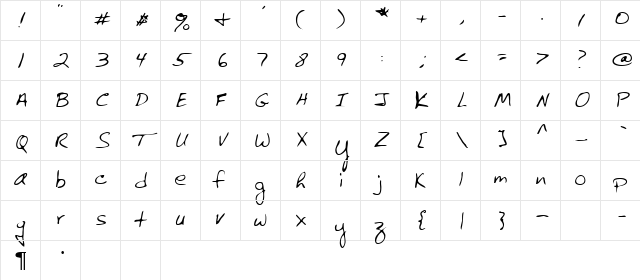
Roland Regular Free Font
Roland Regular
Roland Family
Complete Roland Regular glyph index. Displaying only characters natively supported by Roland Regular font.
Design Context for Roland
Roland is a composed and adaptable typeface that performs quietly and consistently across a wide range of design contexts.